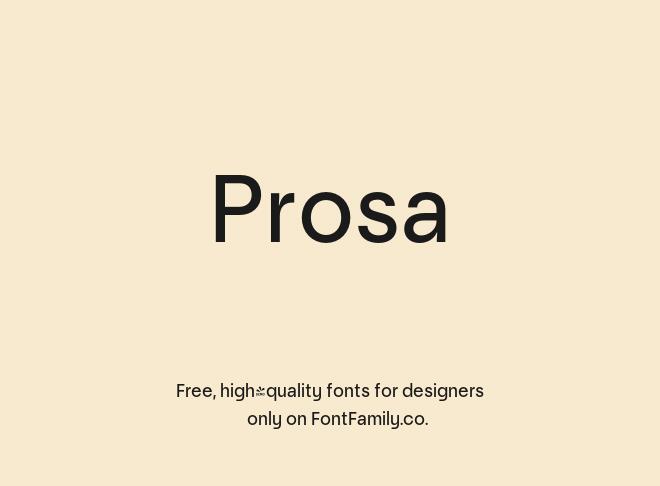
Prosa Font
Prosa Font is a modern, minimal, and elegant typeface that exudes sophistication and simplicity. It was designed by Foundry Co. in 2018 and has since become a popular choice among designers and typographers. The font features clean lines and geometric shapes that make it perfect for logos, branding, and print design. Its minimalistic design also makes it a great choice for web design, as it ensures readability and clarity. Prosa Font is similar to other modern fonts like Helvetica and Futura but stands out with its unique character and charm. Its elegance makes it perfect for luxury brands, while its simplicity allows it to be versatile and adaptable. With an open font license, Prosa Font is free to download and can be used both personally and commercially. Choose Prosa Font for your next design project and experience its modern elegance and versatility.